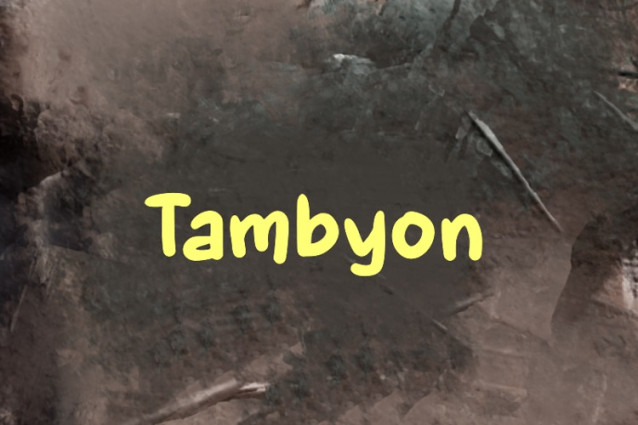
Tambyon Font
Tambyon Font a sweet and friendly handwritten font. Cute and fun, this font is ideal for writing wedding invitations, cards, or any other design that might need a fun touch!